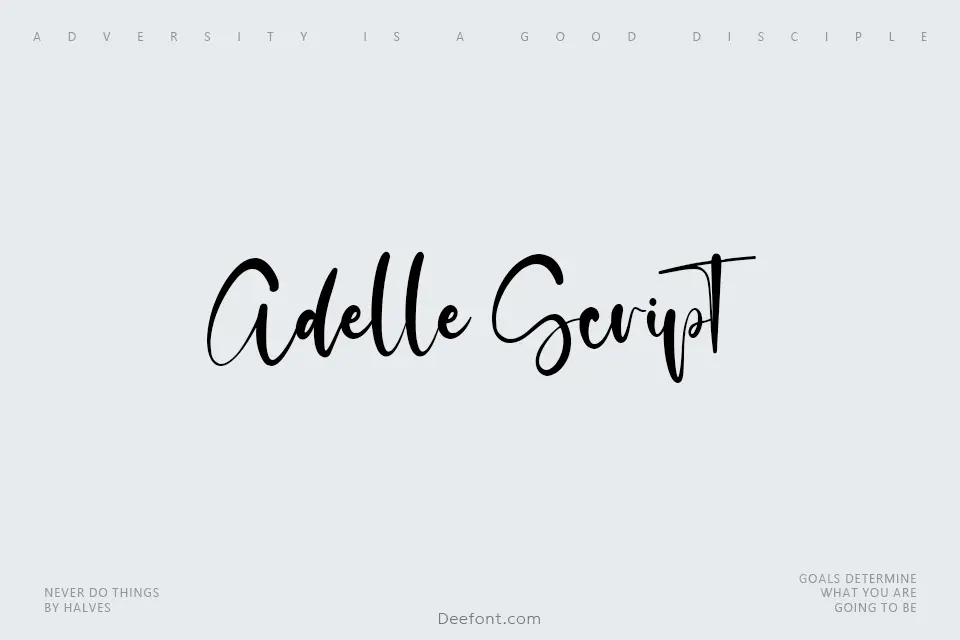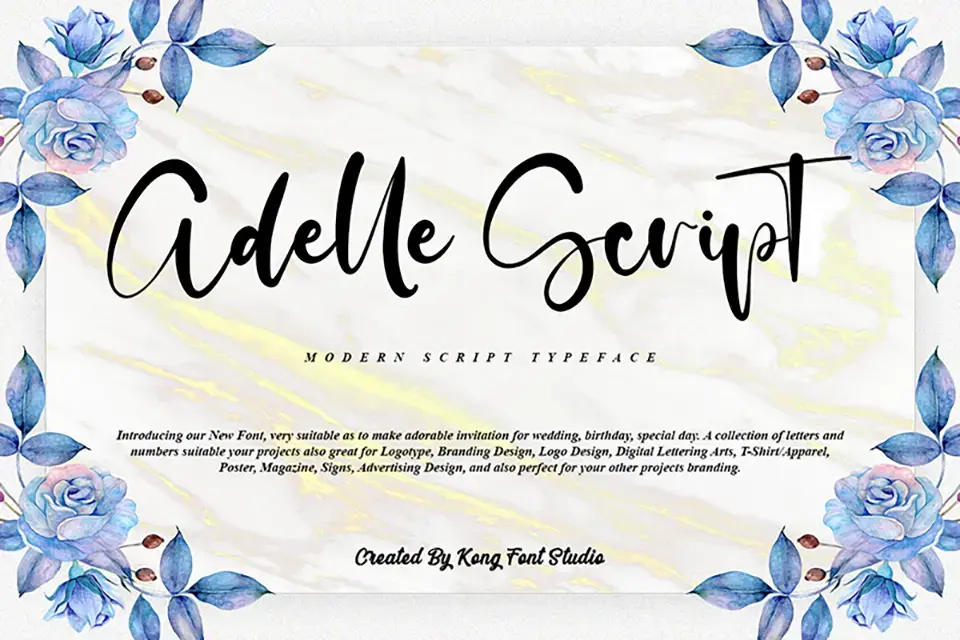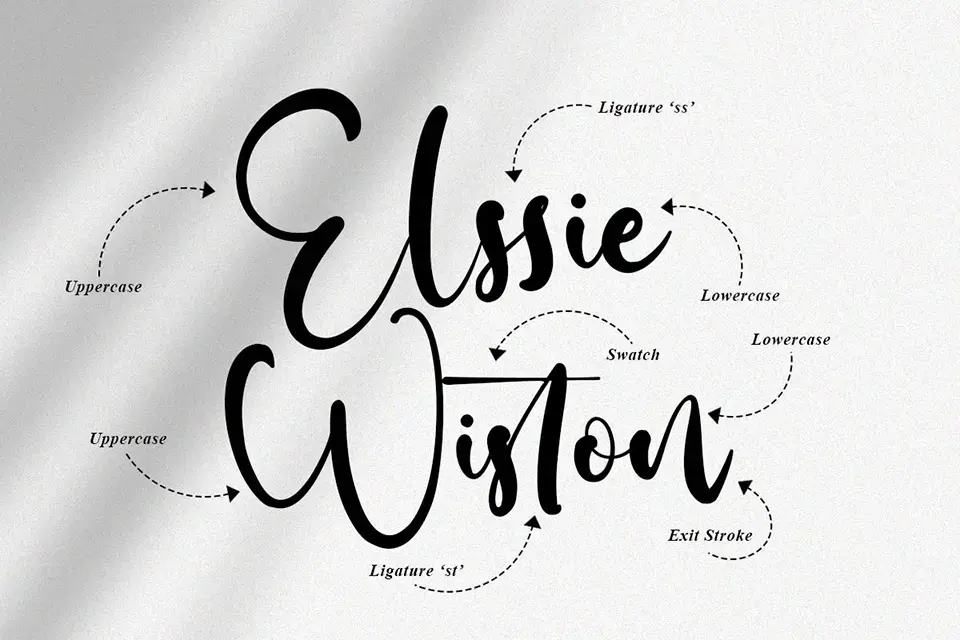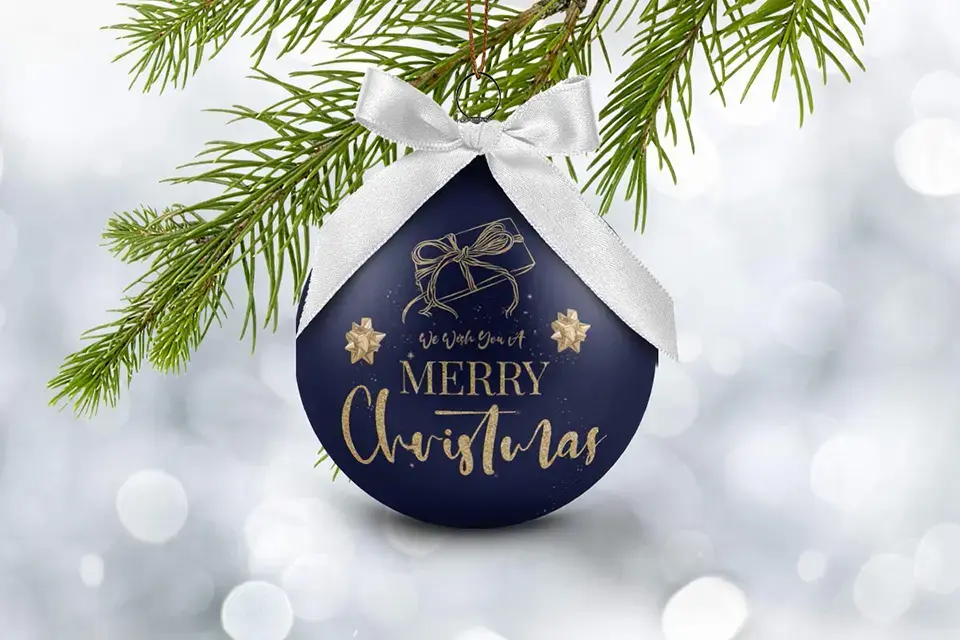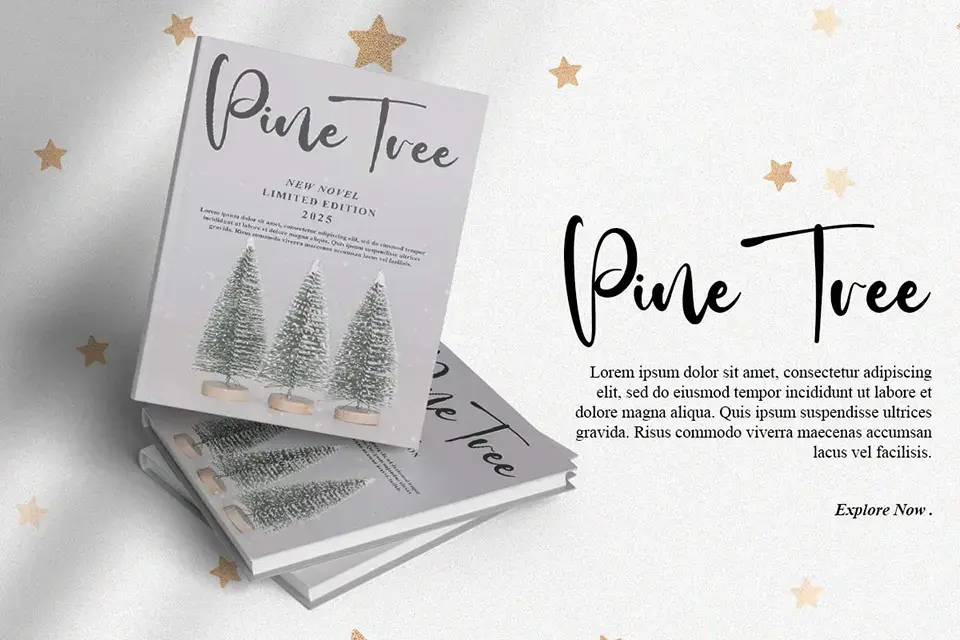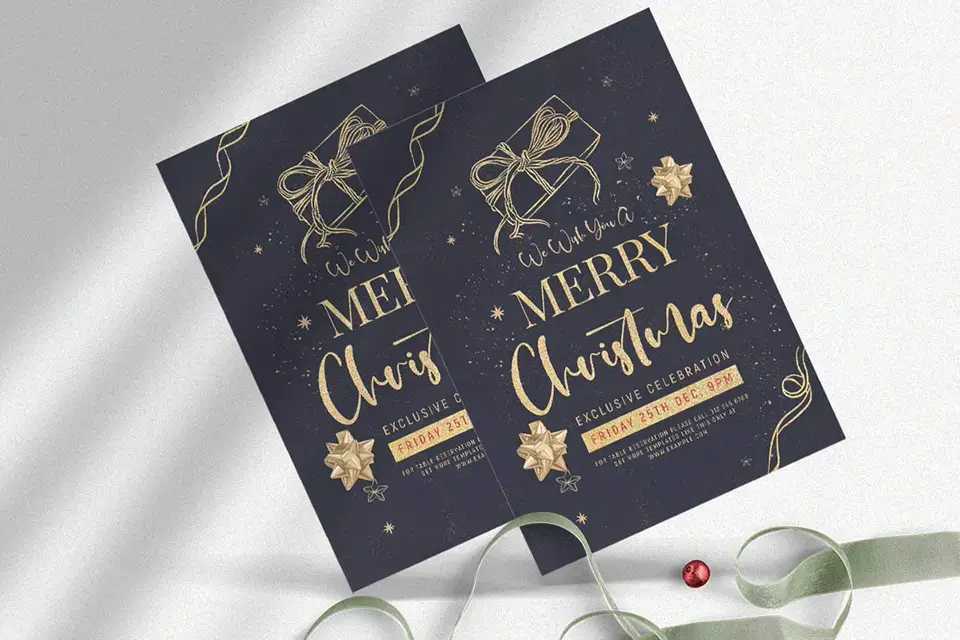
Adelle Script Font
Adelle Script is a refined script font that captures the essence of elegant handwriting with its smooth, flowing letterforms and graceful curves. Designed with an artistic flair, this typeface combines the personal charm of handwritten letters with sophisticated design sensibilities. The font features 243 glyphs supporting multiple character sets, making it versatile for various design applications. Adelle Script excels in creating romantic, creative atmospheres and is particularly effective for wedding invitations, luxury branding, decorative posters, display headings, and personalized stationery projects where elegance and emotional resonance are paramount.